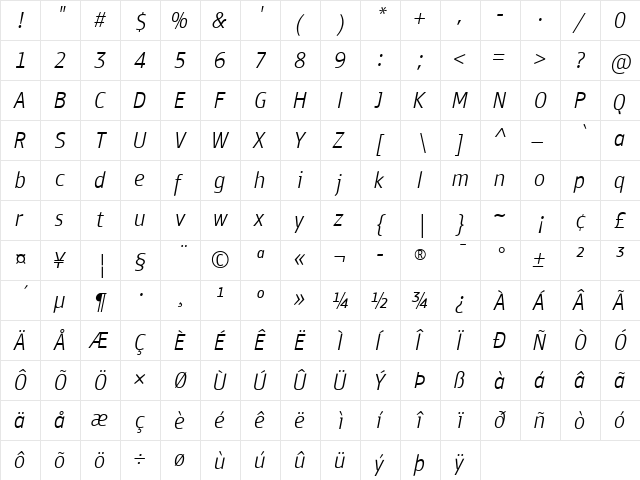
PF Bulletin Sans Pro Light Italic
| Foundry | Parachute蠗orldwide |
| Designer | Panos Vassiliou |
Design Context for PF Bulletin Sans Pro Typeface
PF Bulletin Sans Pro takes a measured approach to typography — its balanced proportions and neutral character make it a reliable workhorse for both digital and print work. The slanted form adds forward momentum and visual energy. Its slender proportions lend an understated elegance to any composition.